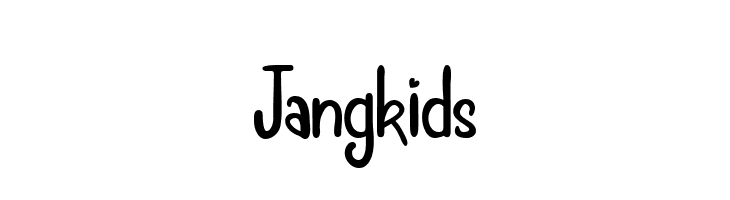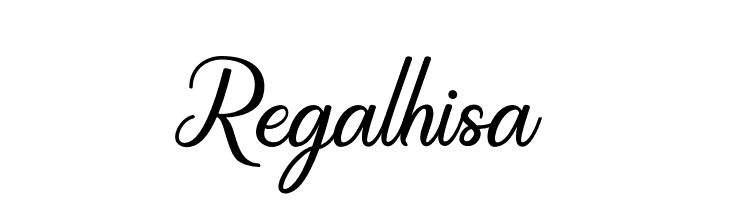
A bold, geometric font with modern and traditional elements.
An elegant, flowing script font with smooth, cursive strokes.
A bold, industrial stencil font with geometric shapes and clear cutouts.
A bold, expressive handwritten font with dynamic strokes.
A bold, futuristic font with geometric shapes and sharp angles.
A bold, playful handwritten font with rounded strokes and a casual vibe.
A playful, bold font with a hand-drawn, whimsical style.
A playful, hand-drawn font with a whimsical and friendly style.
A playful, bold font with rounded edges and a hand-drawn style.
A bold, playful font with a hand-drawn, friendly appearance.